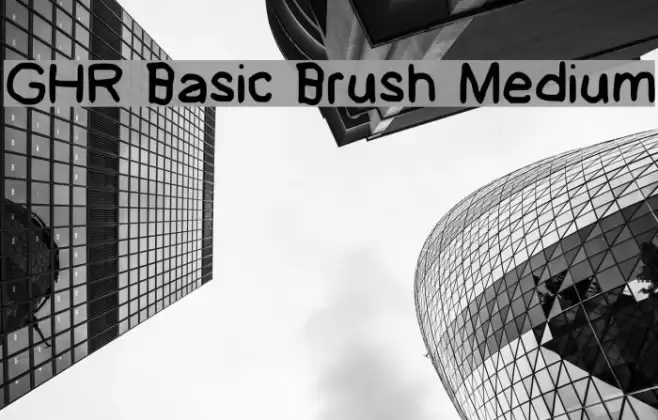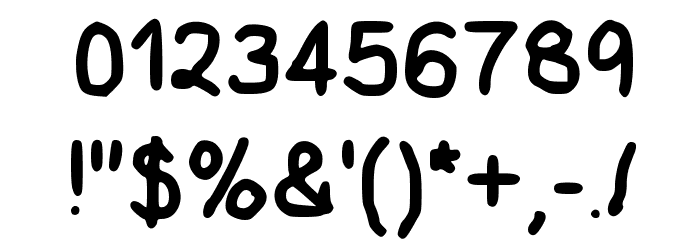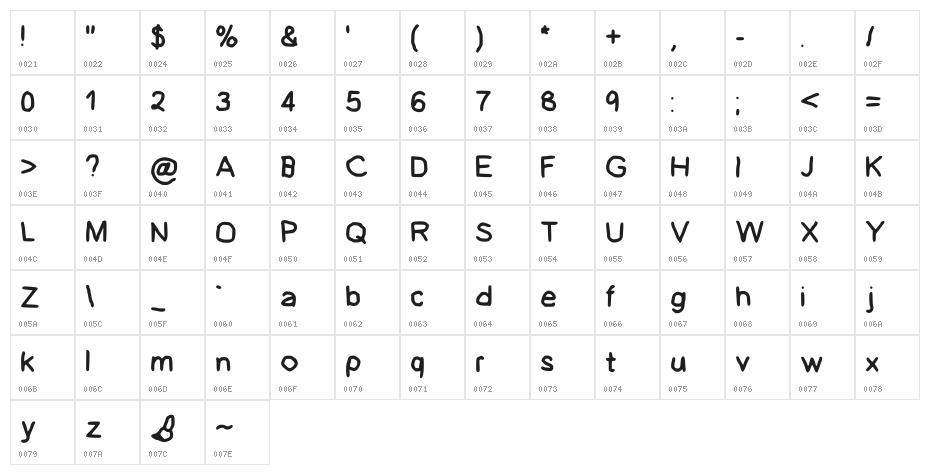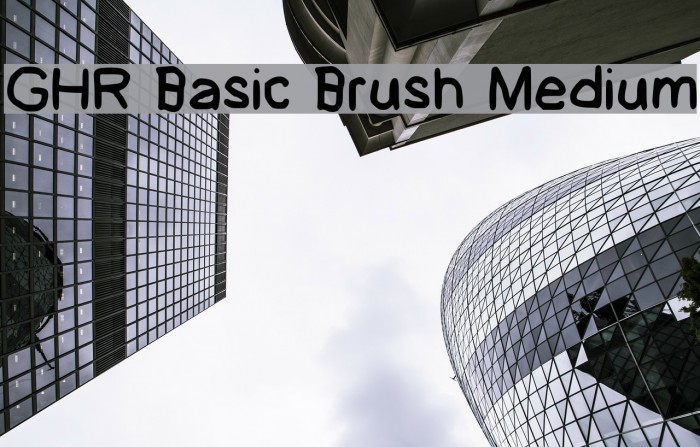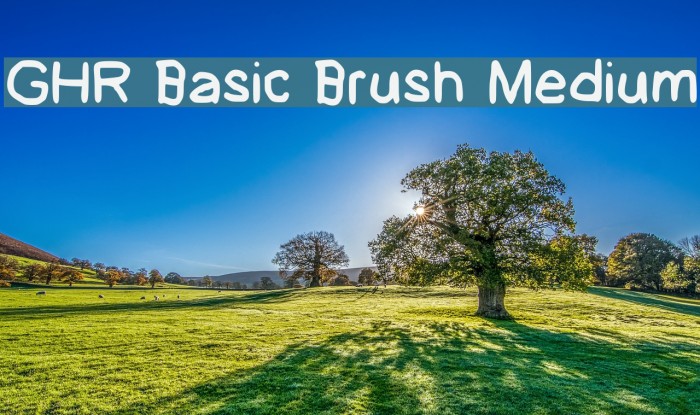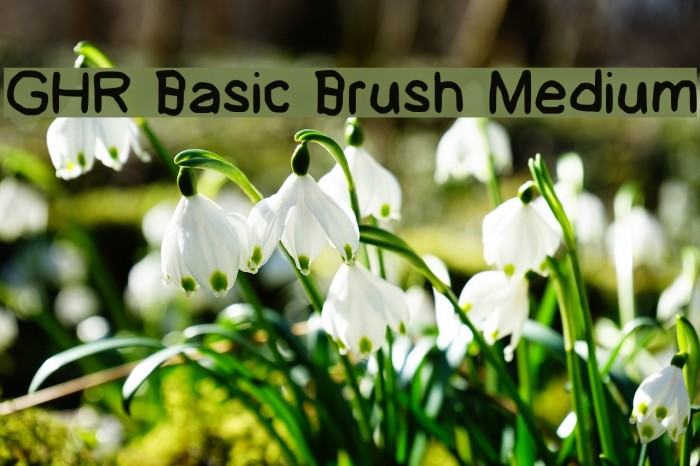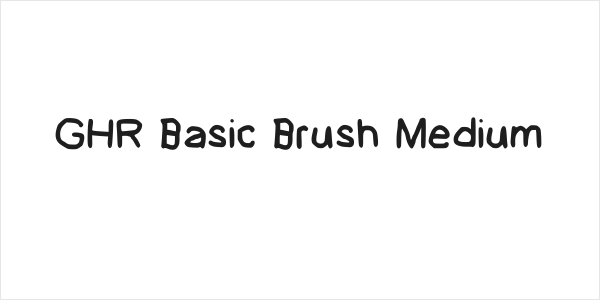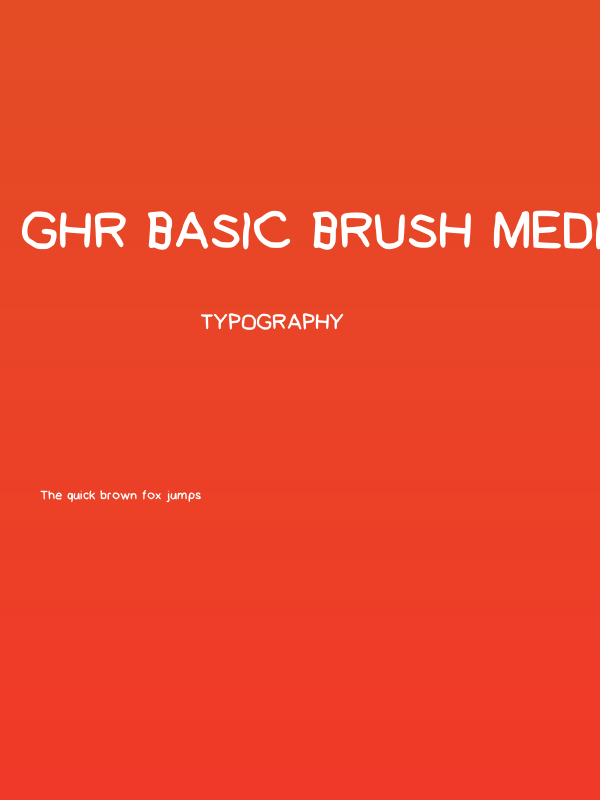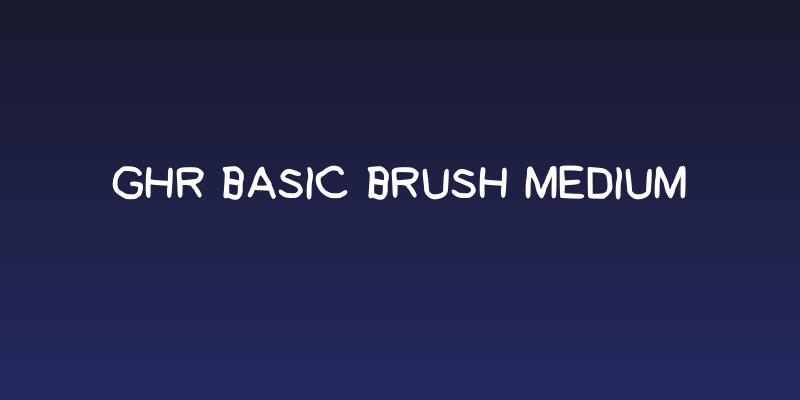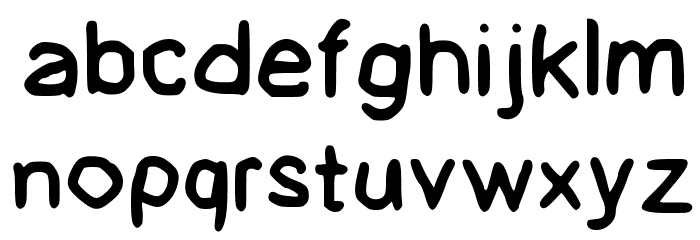
GHR Basic Brush Medium Font
GHR Basic Brush Medium Description
This font features a playful and casual brush style, characterized by its rounded and slightly irregular strokes that mimic the look of hand-drawn letters. The uppercase and lowercase letters maintain a consistent flow, giving it a cohesive appearance. The numbers and special characters are designed with the same brush-like quality, ensuring uniformity across all glyphs. This font exudes a friendly and approachable vibe, making it suitable for projects that require a personal touch. Its medium weight provides a balanced presence, neither too bold nor too light, which enhances readability while retaining its artistic flair.
A playful, brush-style font with rounded, hand-drawn strokes from Uncategorized fonts.
- Proposed Projects: Ideal for greeting cards, children's books, casual branding, and social media graphics.
- Overall Style: Casual
- Use Case: Logos, Headlines, Informal Text